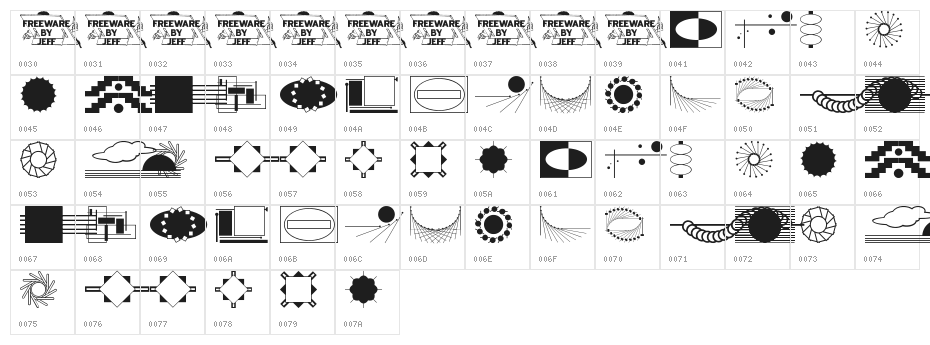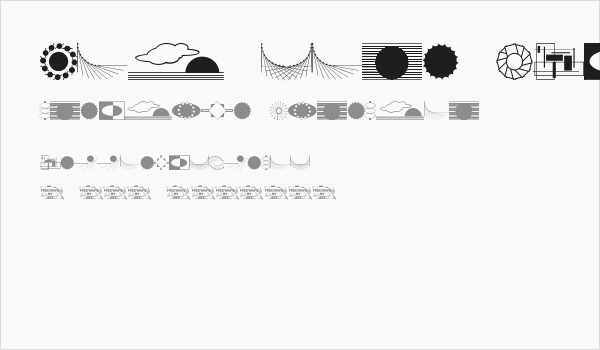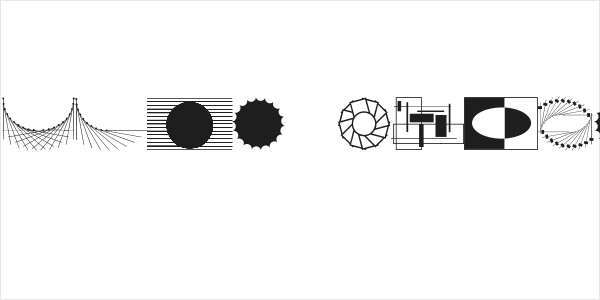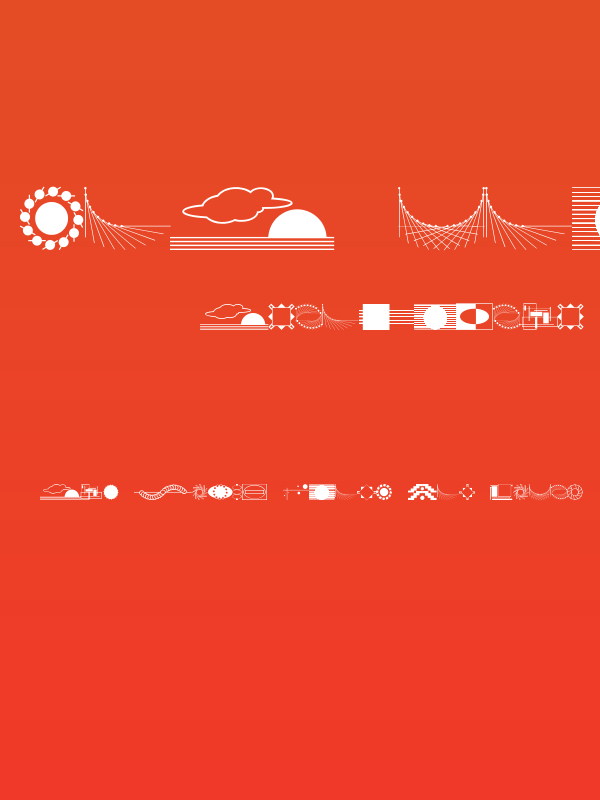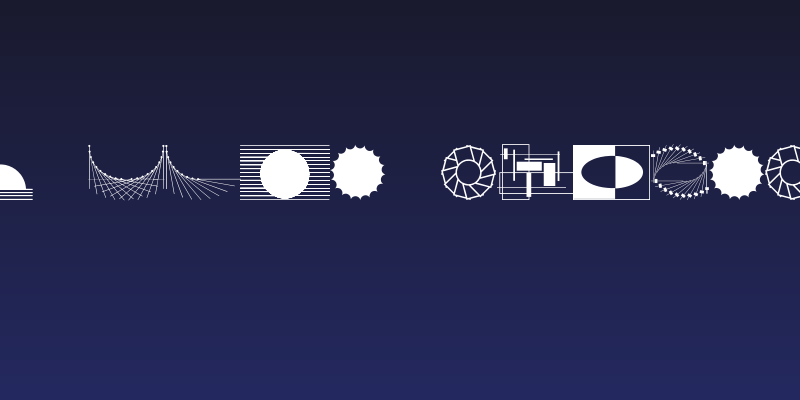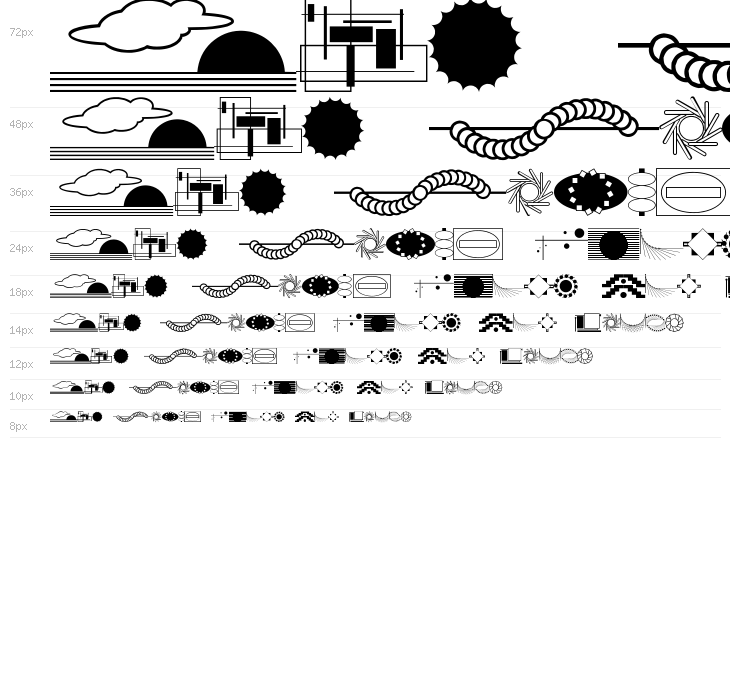
Not More Shapes! JL Font
Not More Shapes! JL Description
This collection features a series of abstract and geometric shapes, each with unique patterns and designs. The shapes range from intricate circular motifs to angular, zigzag patterns, and are presented in a monochromatic palette. The designs incorporate elements such as dots, lines, and curves, creating a visually dynamic and engaging set. These shapes are ideal for decorative purposes, adding a modern and artistic flair to any project. The variety in design allows for versatile use, whether as borders, dividers, or standalone decorative elements.
Use CaseDecorative elements, Borders, Dividers
Proposed ProjectsIdeal for use in graphic design projects such as posters, flyers, and digital art. Can also be used for creating unique borders or dividers in print and digital media.